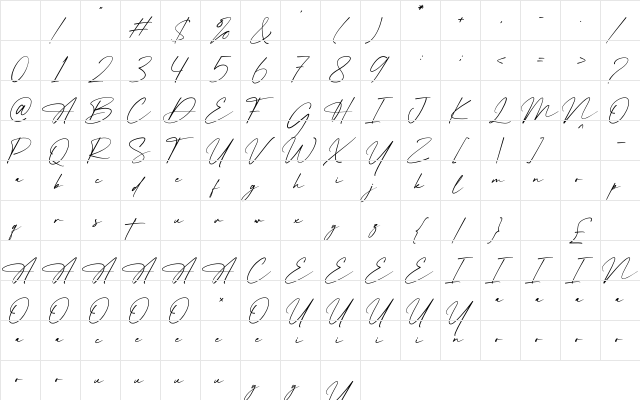
Perfect Girl Script flows with the natural rhythm of handwritten lettering, making it ideal for designs that call for warmth and personal expression.
Font Pairing: Combine Perfect Girl Script with a simple geometric sans for maximum contrast - the tension between flowing curves and clean structure is a classic typographic pairing.
Pro Tip: Use Perfect Girl Script for short runs of text - names, titles, or taglines. Extended body copy in script faces tires the eye quickly.